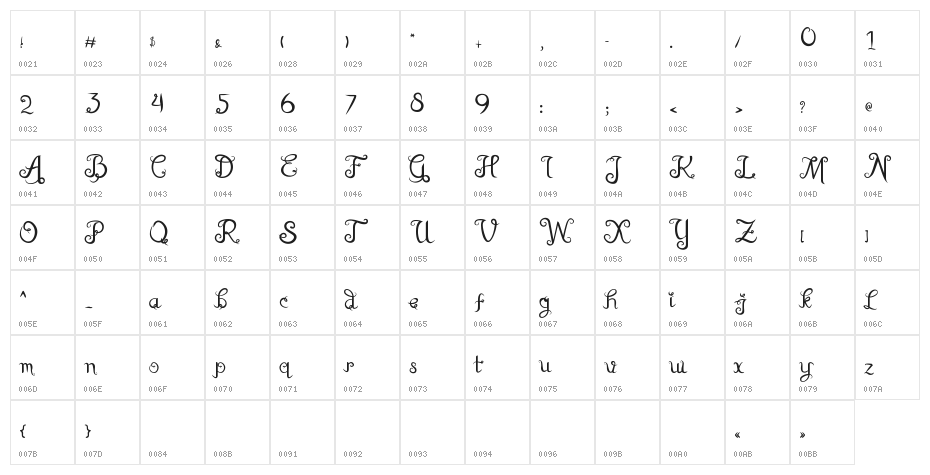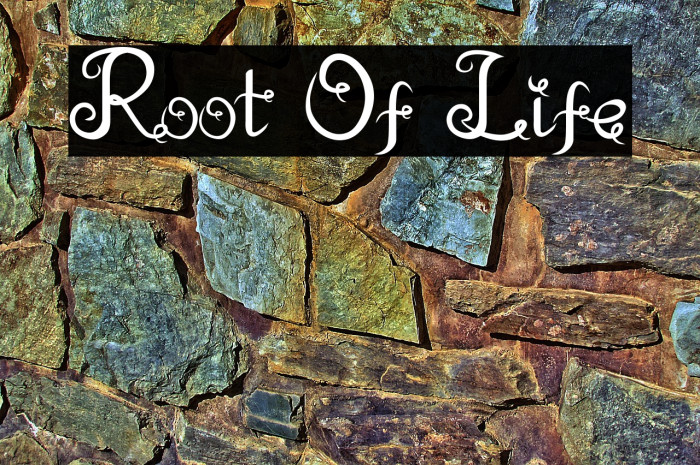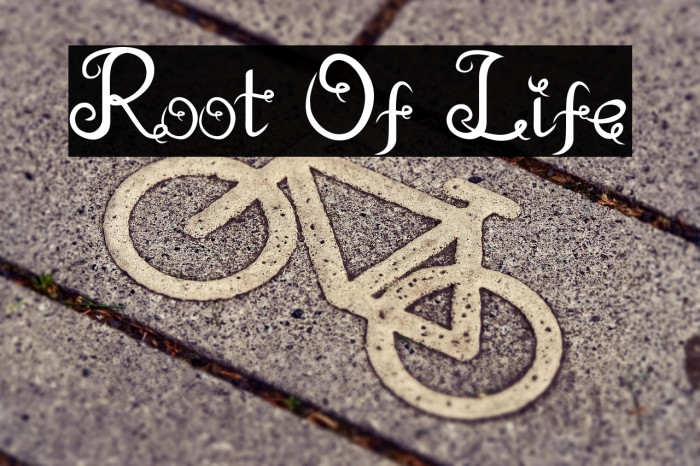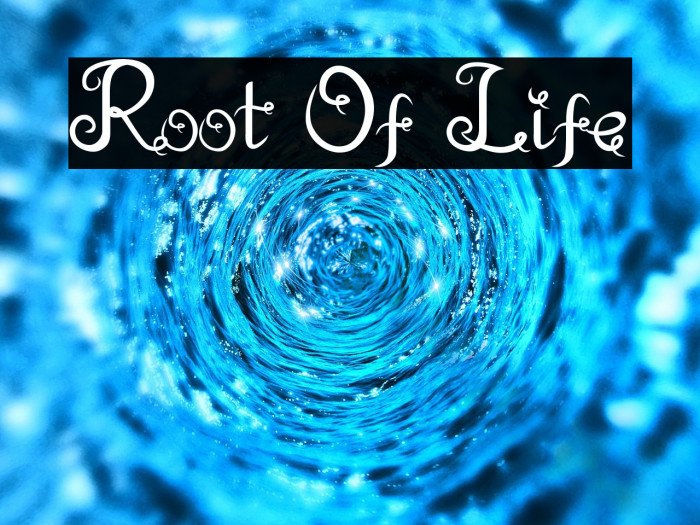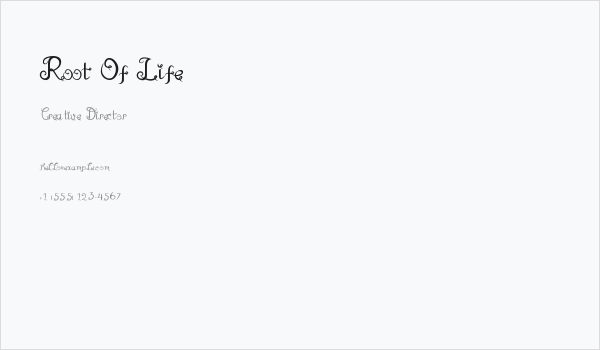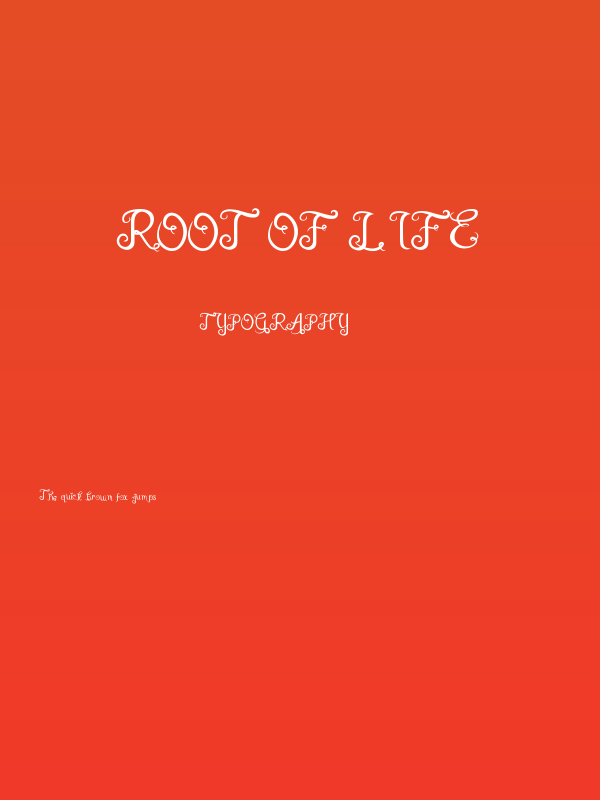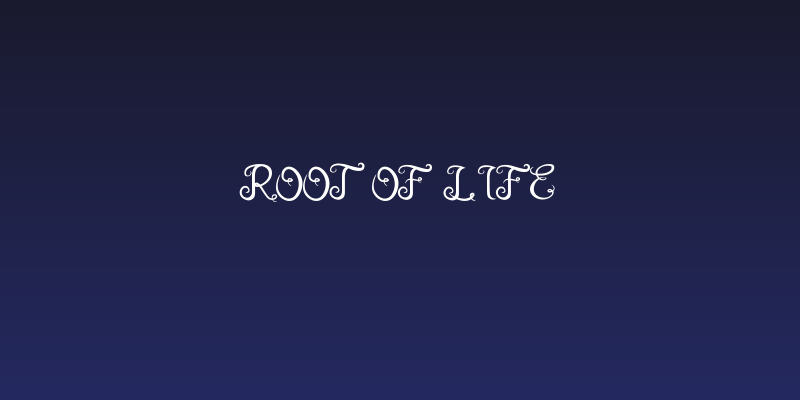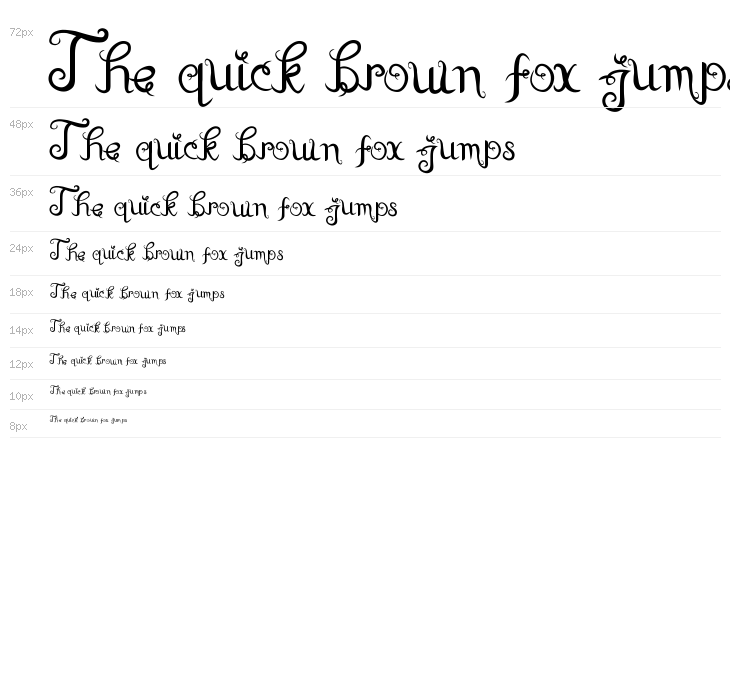
This font features an elaborate and decorative style, characterized by its intricate swirls and flourishes extending from the ends of each letter. The uppercase letters are particularly ornate, with each character displaying unique embellishments that give it a whimsical and artistic feel. The lowercase letters maintain a similar decorative theme, though they are slightly more subdued in their embellishments compared to the uppercase set. The numerals are bold and maintain the decorative style, ensuring consistency across the character set. Special characters are also included, each with its own unique flair, making this font versatile for creative projects.
| Proposed Projects | Ideal for wedding invitations, greeting cards, logo design, and artistic posters. |